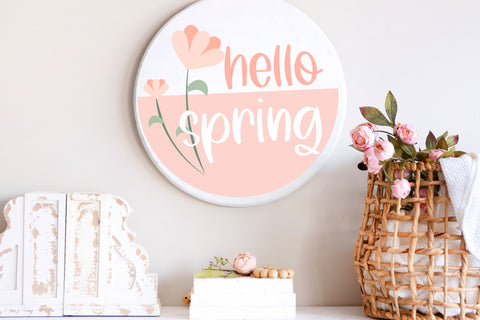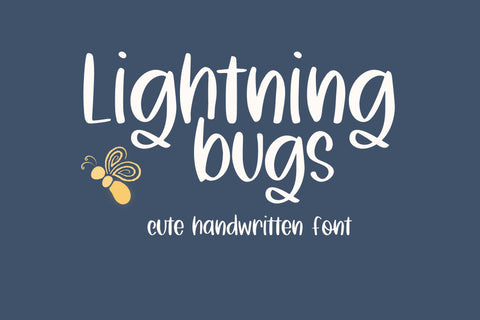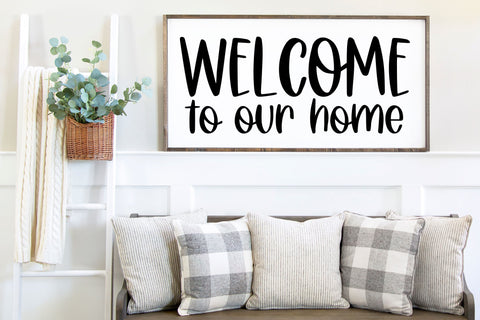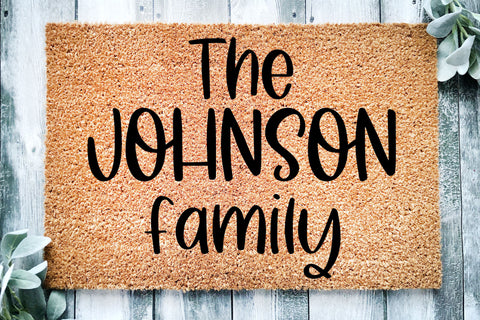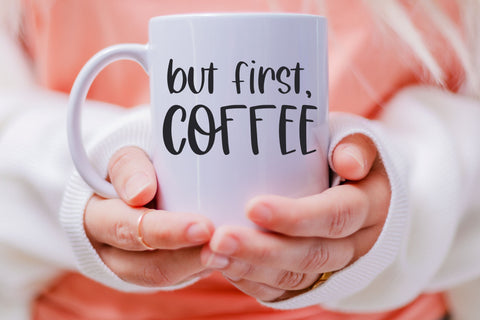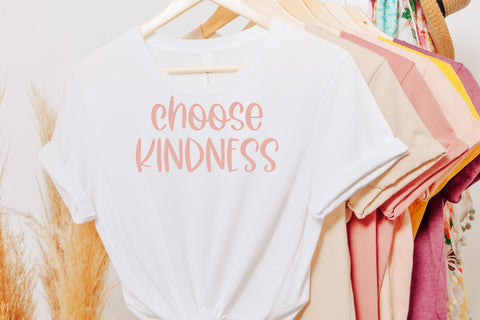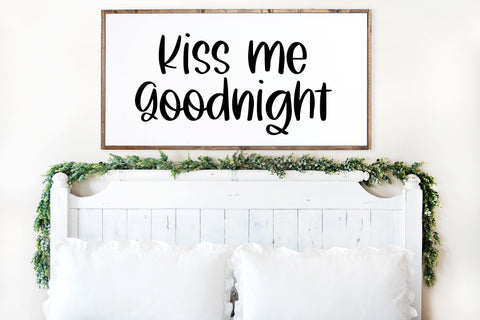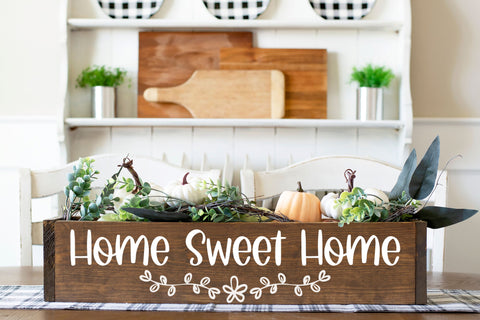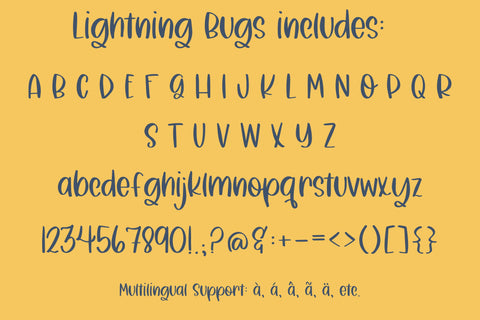
Lightning Bugs, Cute Handwritten Font for Cricut
Introducing Lightning Bugs, cute handwritten font for Cricut, Goodnotes, Procreate, and more - a charming addition to your creative projects! This unique font is perfect for all your Cricut designs, making it a must-have for craft enthusiasts. With its playful and fun handwriting style, it adds a touch of whimsy and personality to any project. Whether you're crafting cards, scrapbooking, or designing SVG files, this font will bring your creations to life.